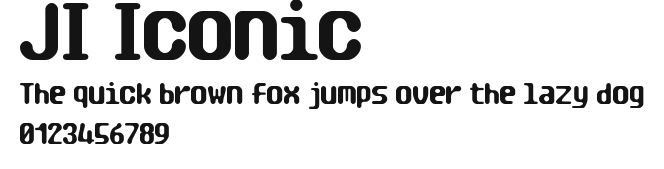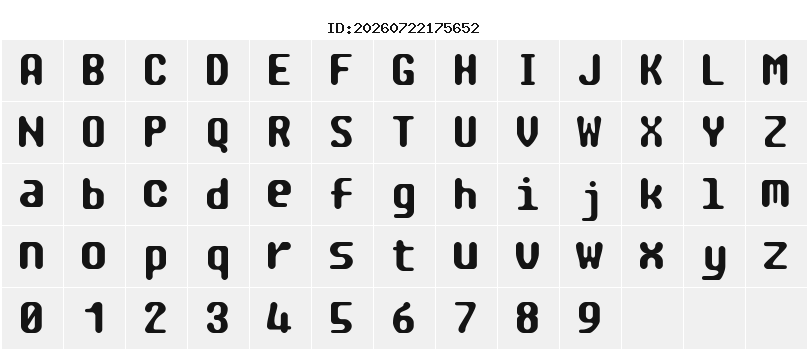
• Font Name: JI-Iconic
• Full Font Name: JI-Iconic
• PostScript Name: JI-Iconic
• Designer: JupiterImages
About JI-Iconic.ttf
JI-Iconic.ttf is a modern, elegant sans-serif font designed for ultimate readability and visual harmony. Perfect for branding, headlines, web design, and print materials.